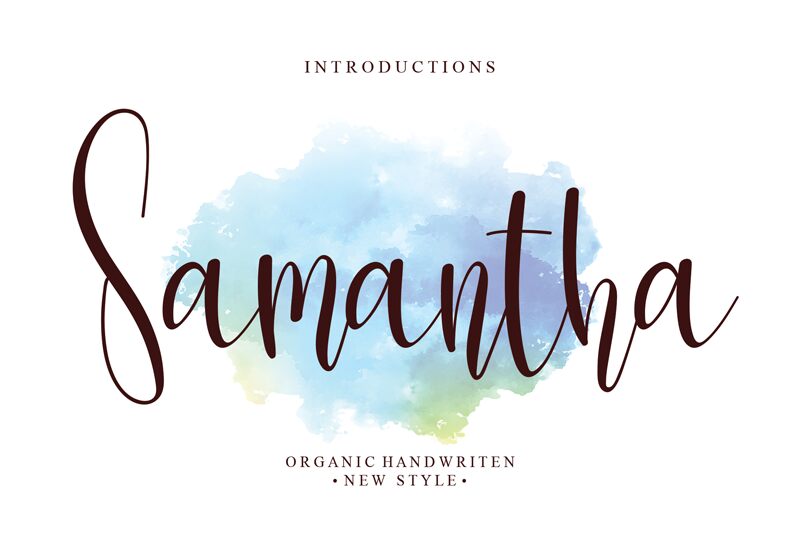
Samantha
Samantha is a light, narrow handwritten font designed by scratchones. Perfect for adding a personal touch to projects, Samantha is perfect for crafting posters, cards and invitations with a unique look.
the latest style letters are perfect for wall displays, wedding invitations, social media post logos, advertisements, product packaging, product designs, labels, photography, watermarks, invitations, stationery, and any project that requires taste handwriting.